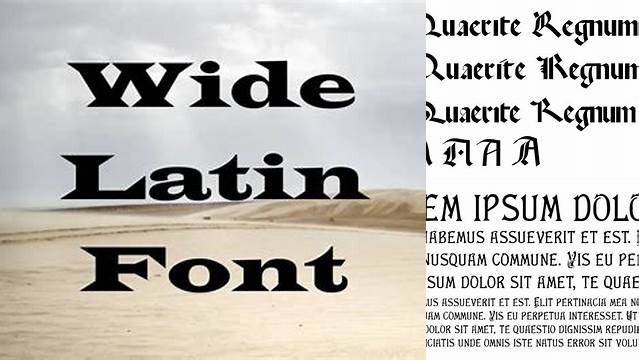
Exploring Different Styles of Latin Fonts
Alright, let's talk about the fun stuff: the different styles of Latin fonts! You’ll find that there's a huge variety, each with its own unique character and vibe. It's kinda like choosing the right outfit for your project. Each style helps deliver a different message.
First up, we have Serif fonts. These are the classic guys. They have those little strokes, called serifs, at the end of the letters. Think of fonts like Times New Roman or Garamond. They're super readable, especially for body text in books or articles. They give a sense of tradition and formality. If you want something that feels reliable, try a serif. Then there are Sans-Serif fonts. These fonts ditch the serifs, giving them a clean and modern look. Fonts like Arial and Helvetica are examples. They're great for headlines, websites, and anything that needs to look contemporary. They're also really easy to read on screens. They give off a feeling of simplicity and modernity. Next, we have Script fonts. These fonts mimic handwriting and are super elegant. Fonts like cursive are great for invitations, logos, and anything that needs a touch of personality. They can be fancy, but also really personal.
Display fonts are great for adding some flair to your designs. They include a wide variety of styles, from bold and playful fonts to more decorative options. These fonts are perfect for headlines, posters, and anything that needs to grab attention. This is the moment to get creative! Finally, we have monospace fonts. These fonts give each letter the same amount of horizontal space. They're often used for coding or representing text in a technical context. They look very precise. Remember, there's no one-size-fits-all. Each font has its own personality. So, when you are choosing the perfect Latin font free download, consider the purpose of your project and the message you want to convey. The best font is the one that looks good and is still easy to read, even at small sizes!
Pairing Fonts for Stunning Designs
Alright, so you've got a few Latin fonts free download under your belt, but how do you use them together in your designs? This is where the magic happens, guys! Combining different fonts can really make your work pop, but it's an art form.
One of the first things to keep in mind is contrast. You want to use fonts that are different enough to stand out from each other. Avoid using two fonts that are too similar because it can look messy. For example, you could pair a bold sans-serif font for headlines with a more classic serif font for body text. It’s like a visual conversation. Next up, you have to think about the mood of your project. Are you going for a modern vibe? A classic look? Or maybe something playful? Make sure the fonts you choose complement that mood. Then, you have to make sure the fonts complement each other. Consider the font's weight, style, and x-height. The x-height is the height of the lowercase letters. You want to balance these elements to create a cohesive look. Then you can use font pairings. These are pre-made combinations designed by professionals. Many websites, like Google Fonts, offer font pairing suggestions. These can be a great starting point. Always test your font pairings. Try them out in your design and see how they look. Make sure the text is readable. Try different sizes and weights. Play around with it! Don't be afraid to experiment! Test and test again until you get the perfect look. A little bit of trial and error is part of the fun!
Making the Most of Your Free Latin Fonts
So, you’ve snagged some awesome Latin fonts free download – fantastic! Now, let's talk about how to use them to make your work pop.
First off, let's make sure the fonts look great. Always consider readability. The font you choose should be easy to read, especially for long blocks of text. If your font is fancy, it can be super cool, but if it's hard to read, it will ruin everything. Think about the size and the spacing. Use the right font size for your text. Use a good line height and letter spacing. This makes your text easier to read. Keep a consistent look. Always use the same fonts throughout your design. It's like a personal brand. It helps build a professional and cohesive look. If you change fonts all the time, it can look messy. Consider the context. Make sure your font matches the purpose of your project. Are you designing a website? Or are you creating a poster for a party? Select the font that complements the context. Play with different styles. Different fonts bring different moods. Be creative with your designs! Mix and match fonts. Use bold and italics.